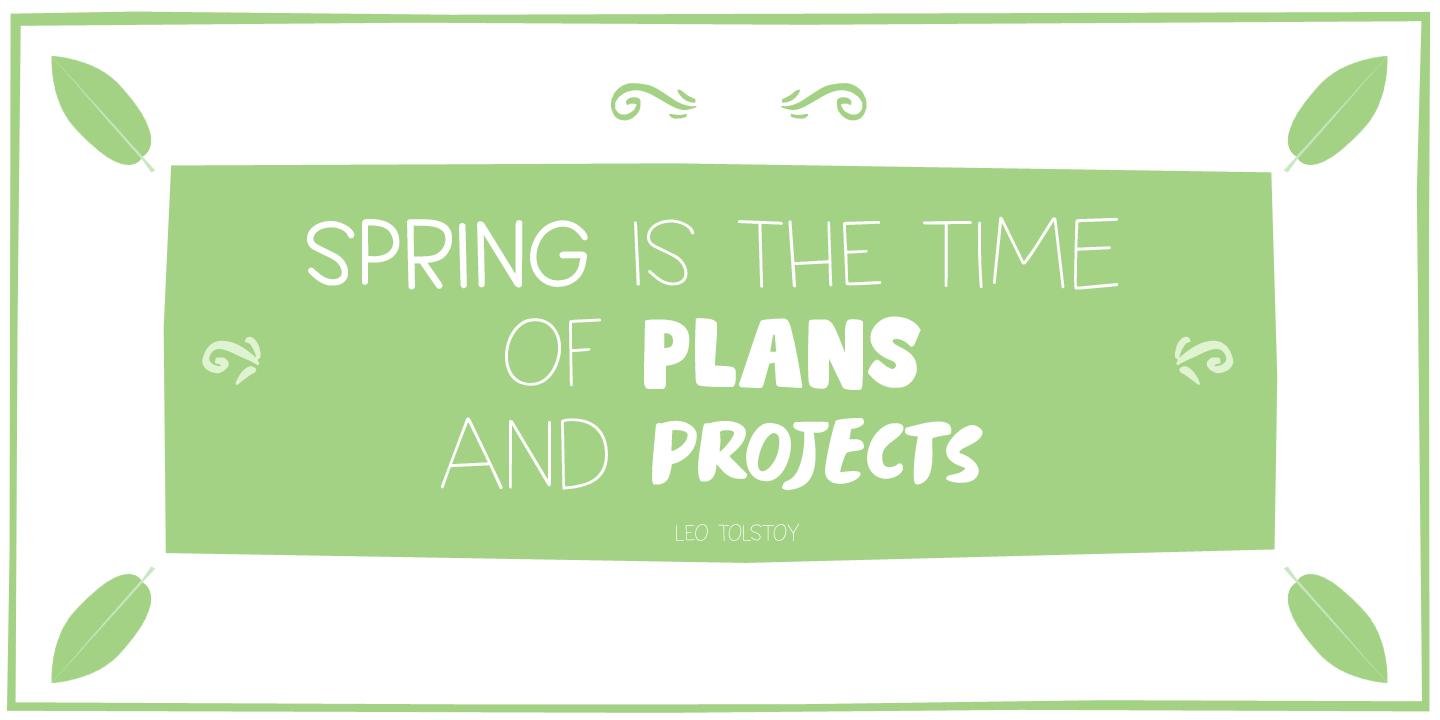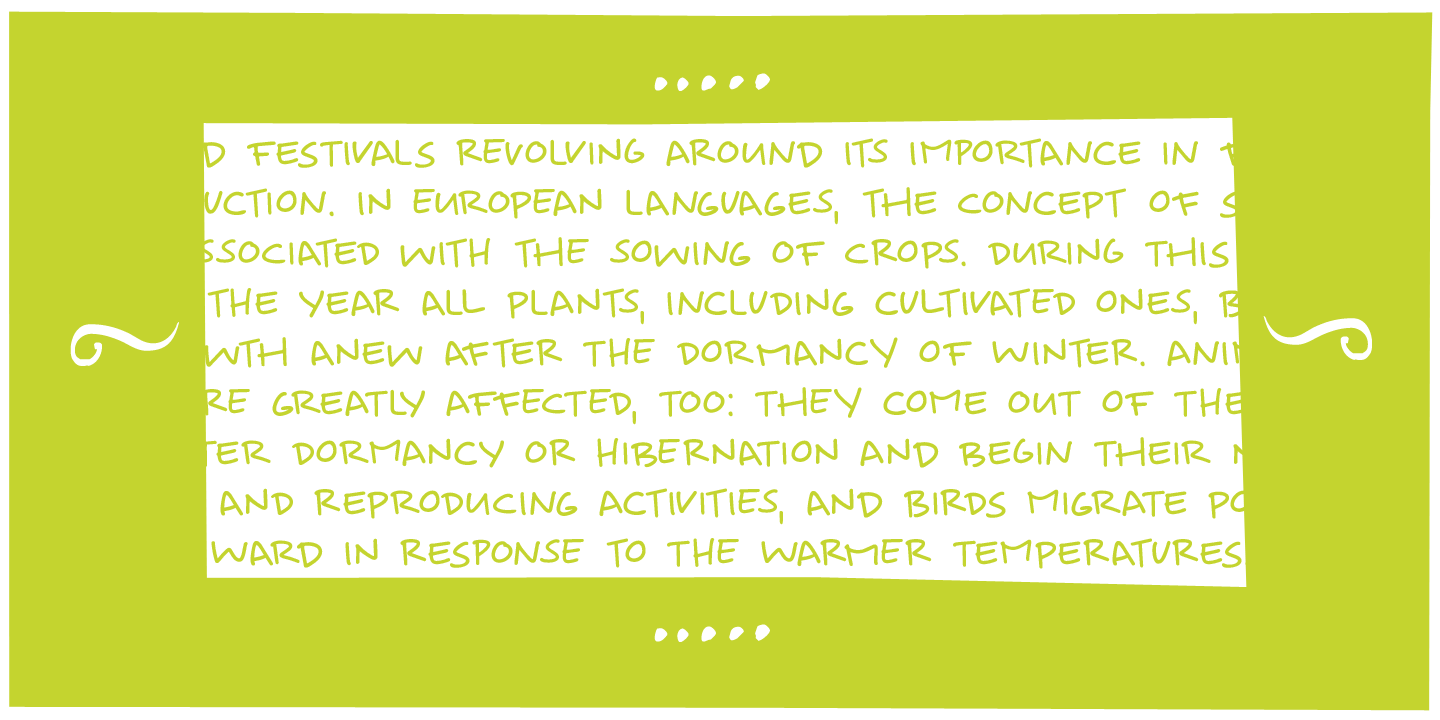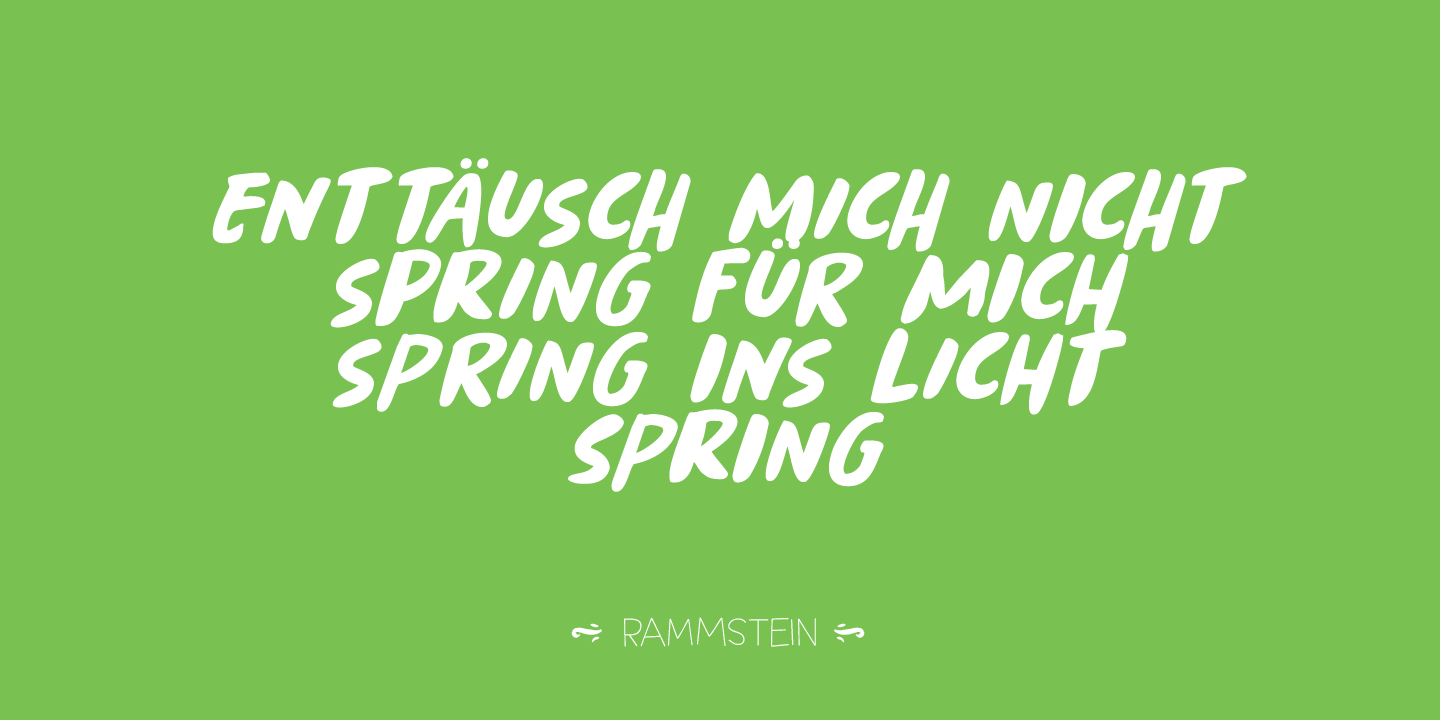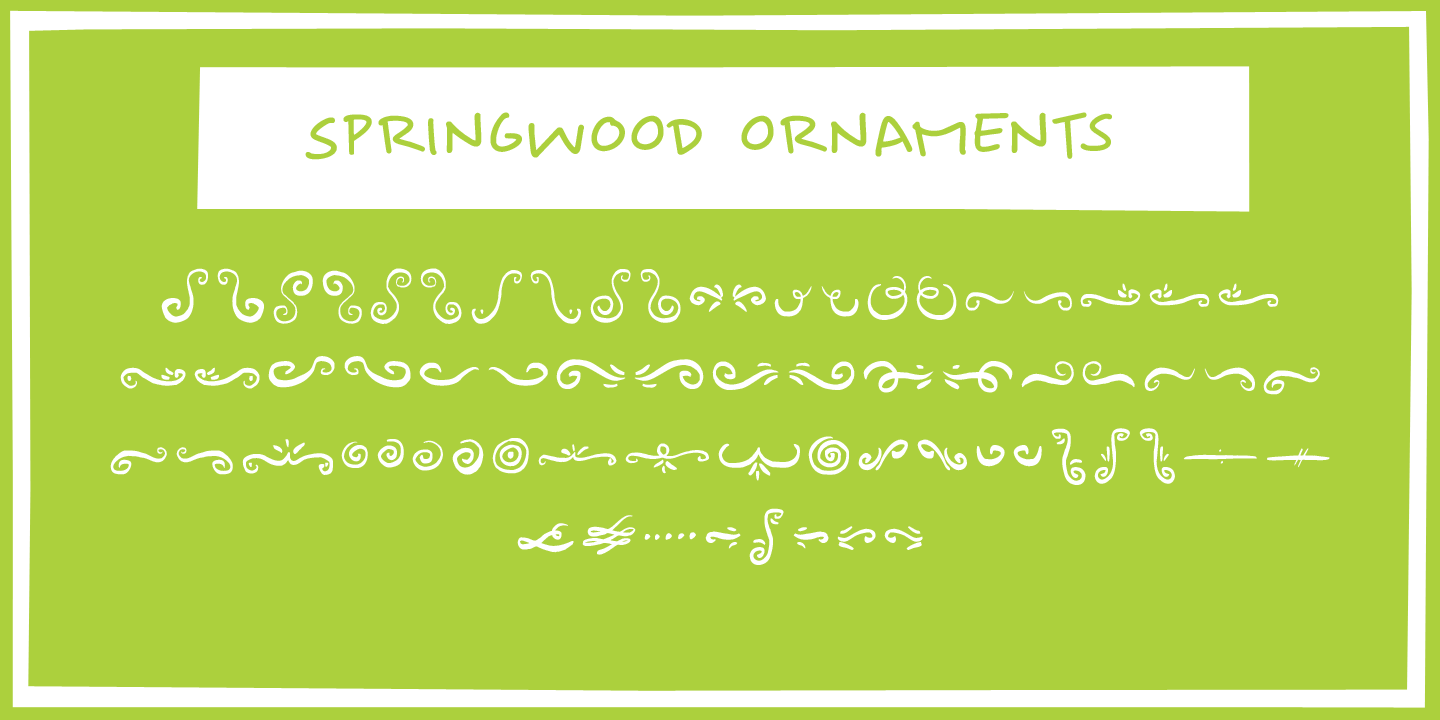
Springwood
Spring is in the air! At least, where I live. My two pear trees are in bloom, bees are buzzing and everything turns a brighter shade of green. Time for a new and fresh font package with a spring-inspired name!
Springwood is a handmade set of fonts, ranging from a fat display font to a messy script font. Use it for your freshest ideas, your coolest designs or just anything that needs a bit of springtime.